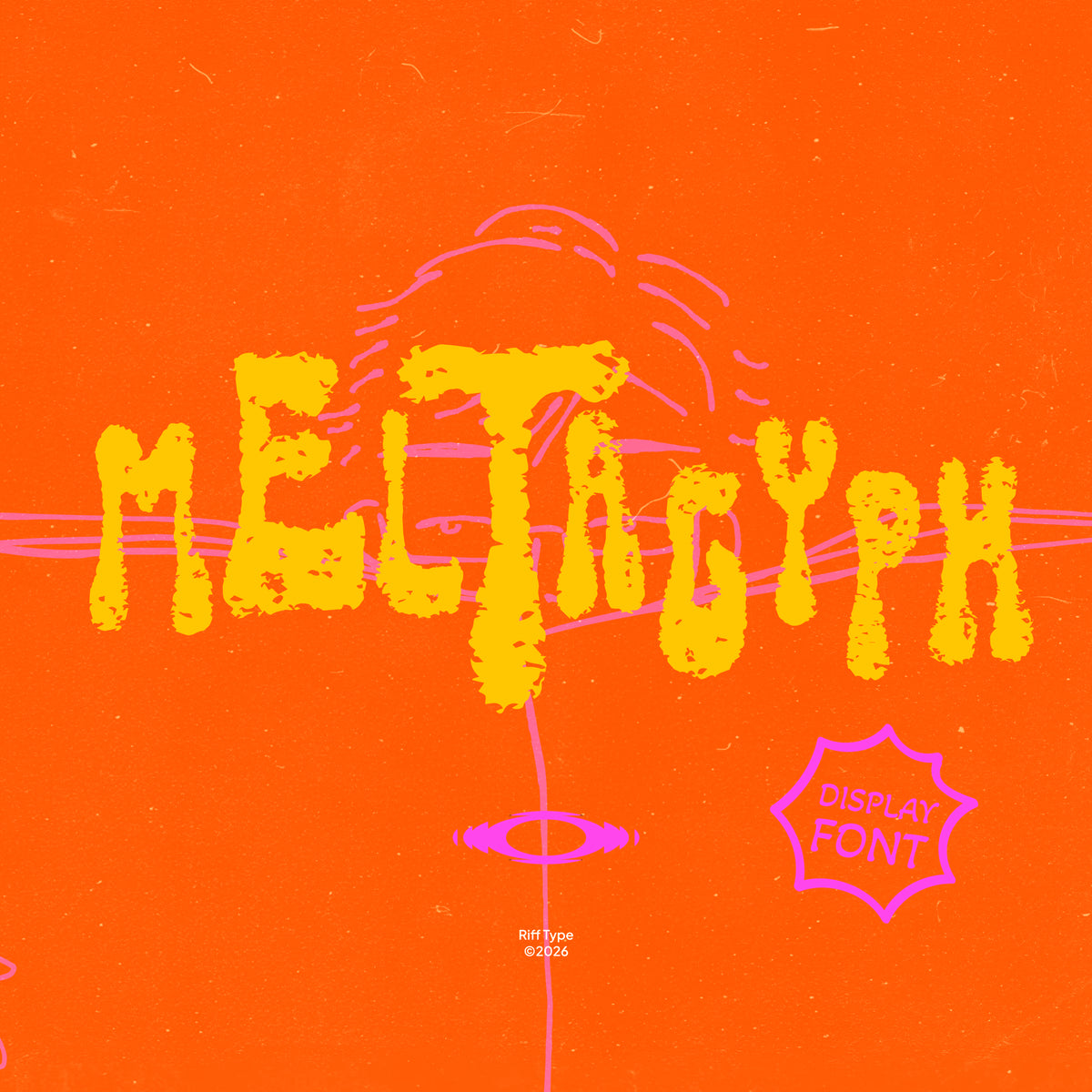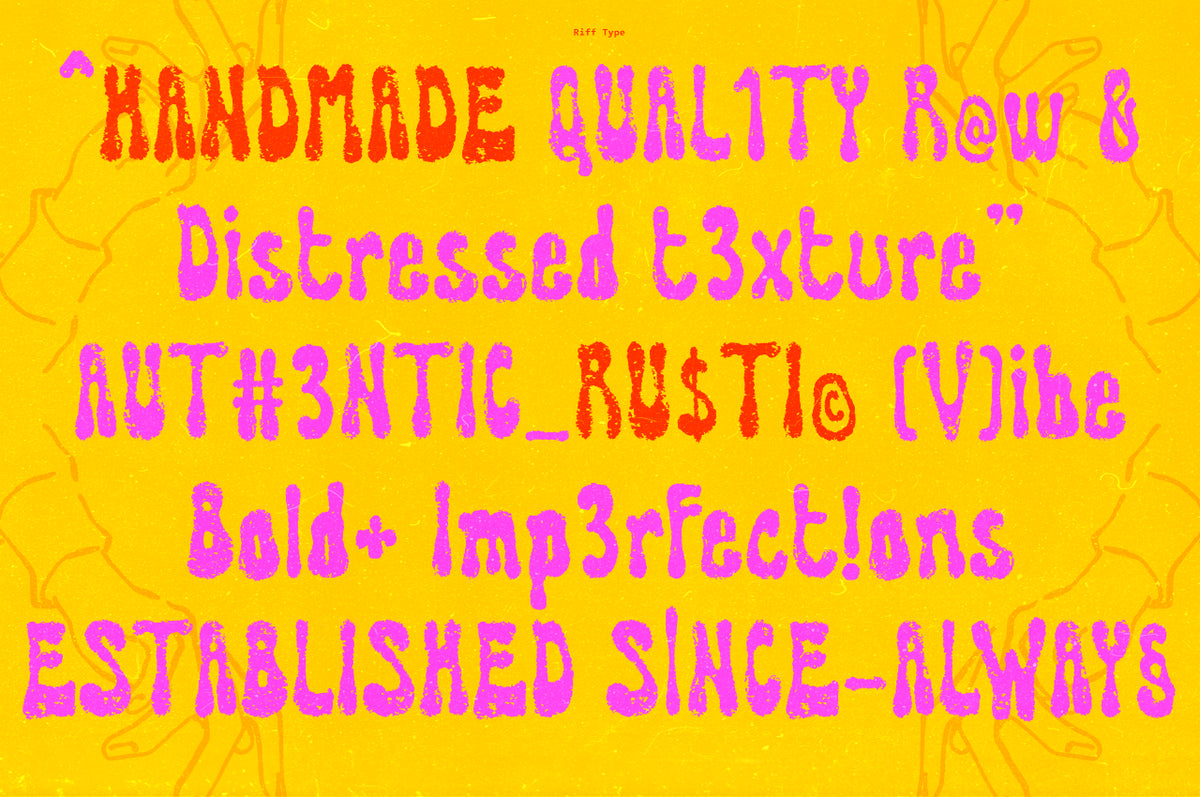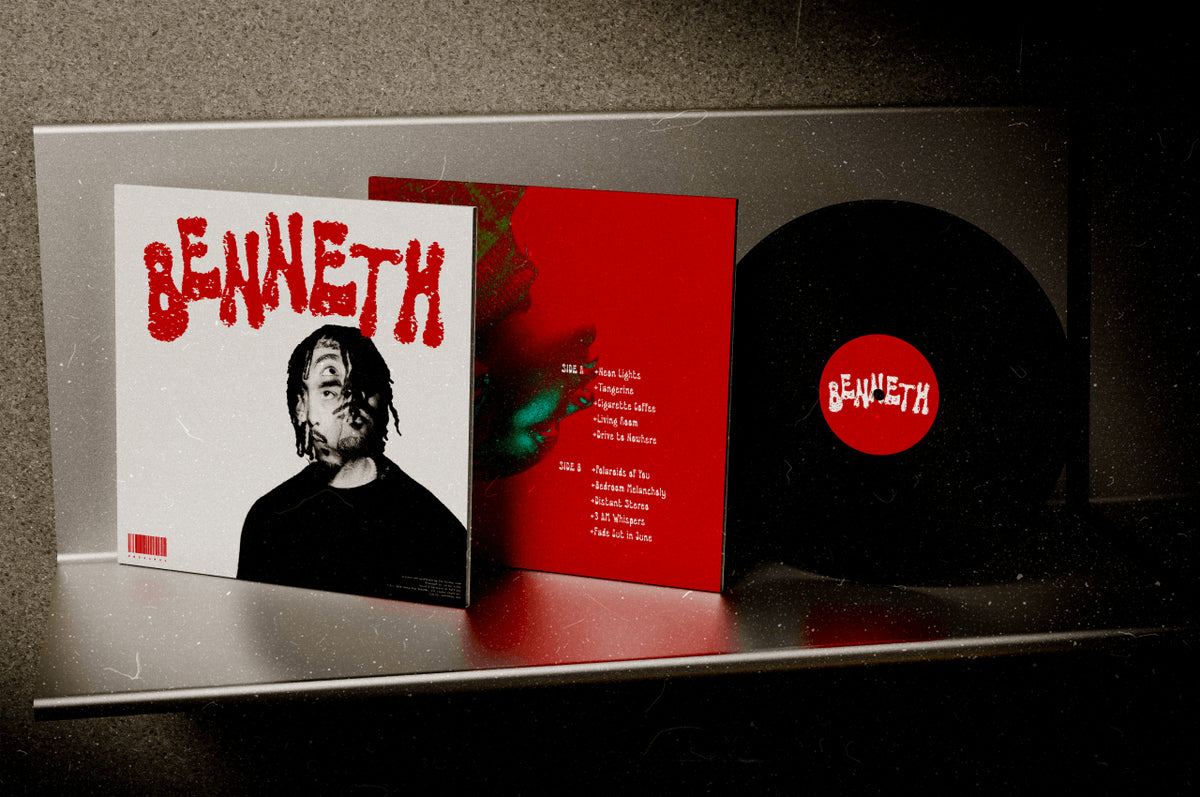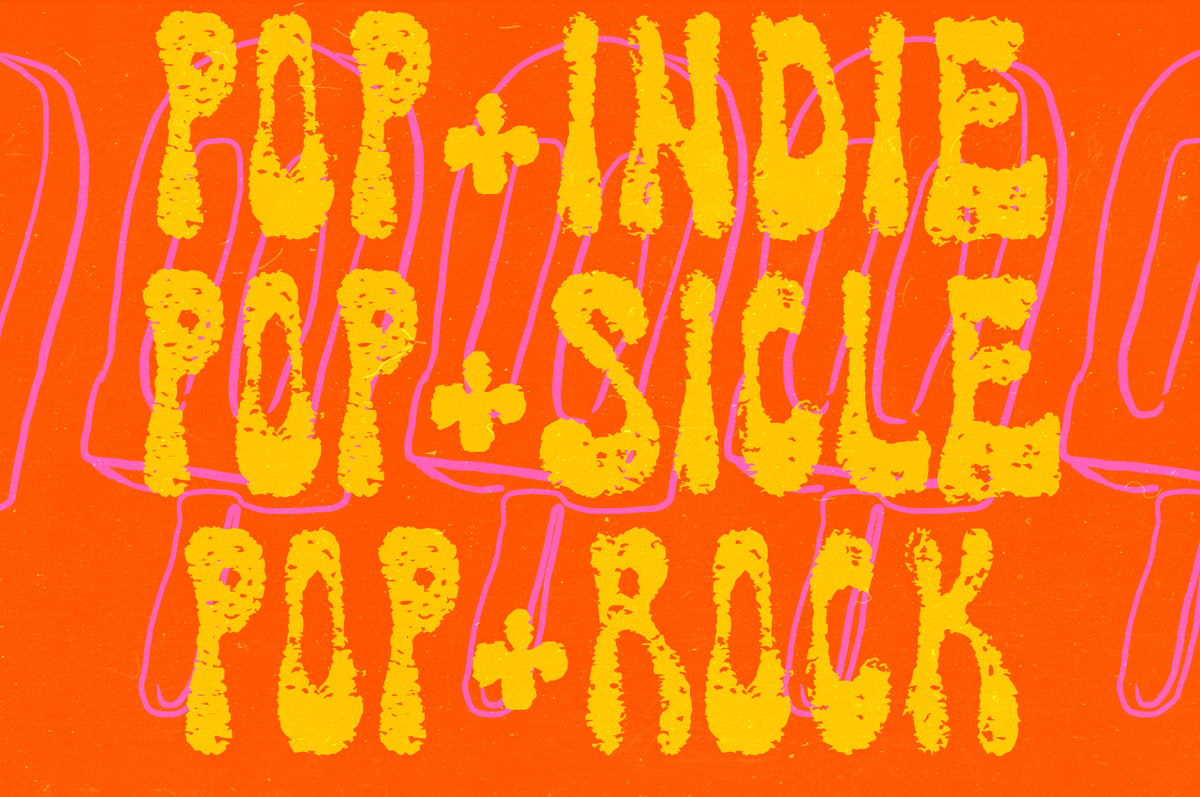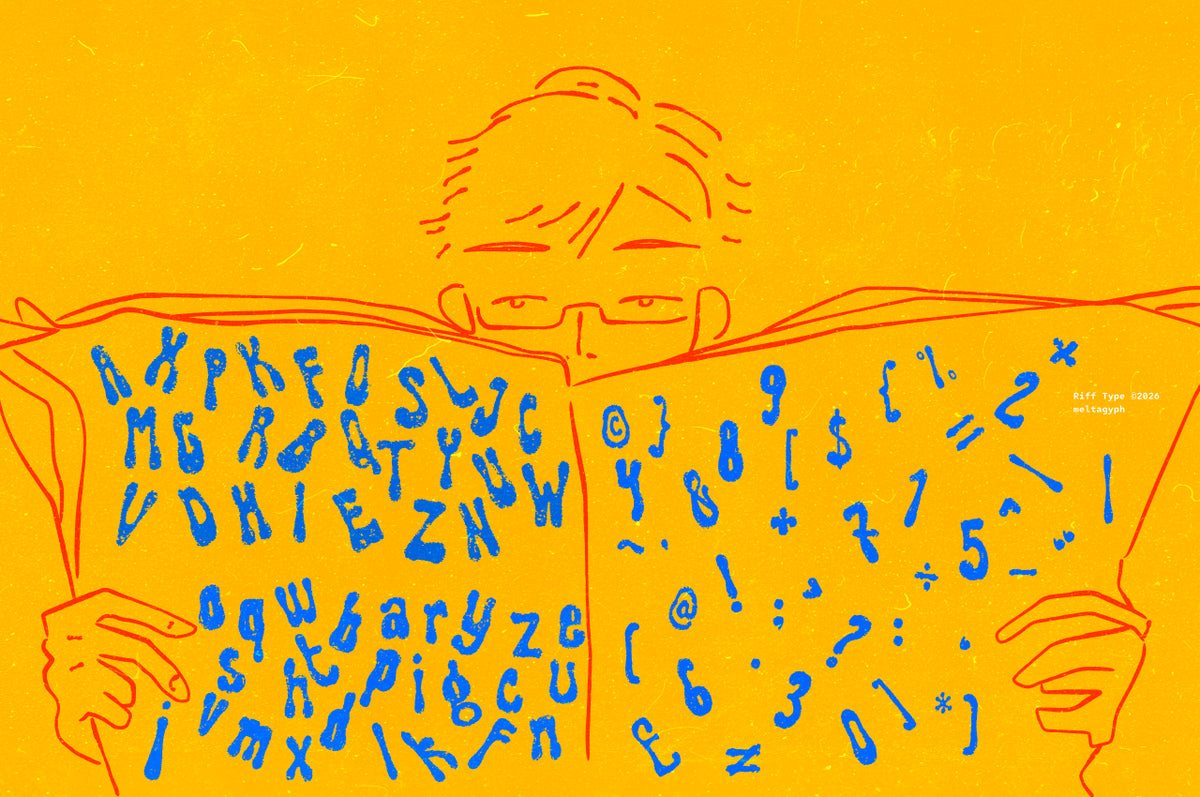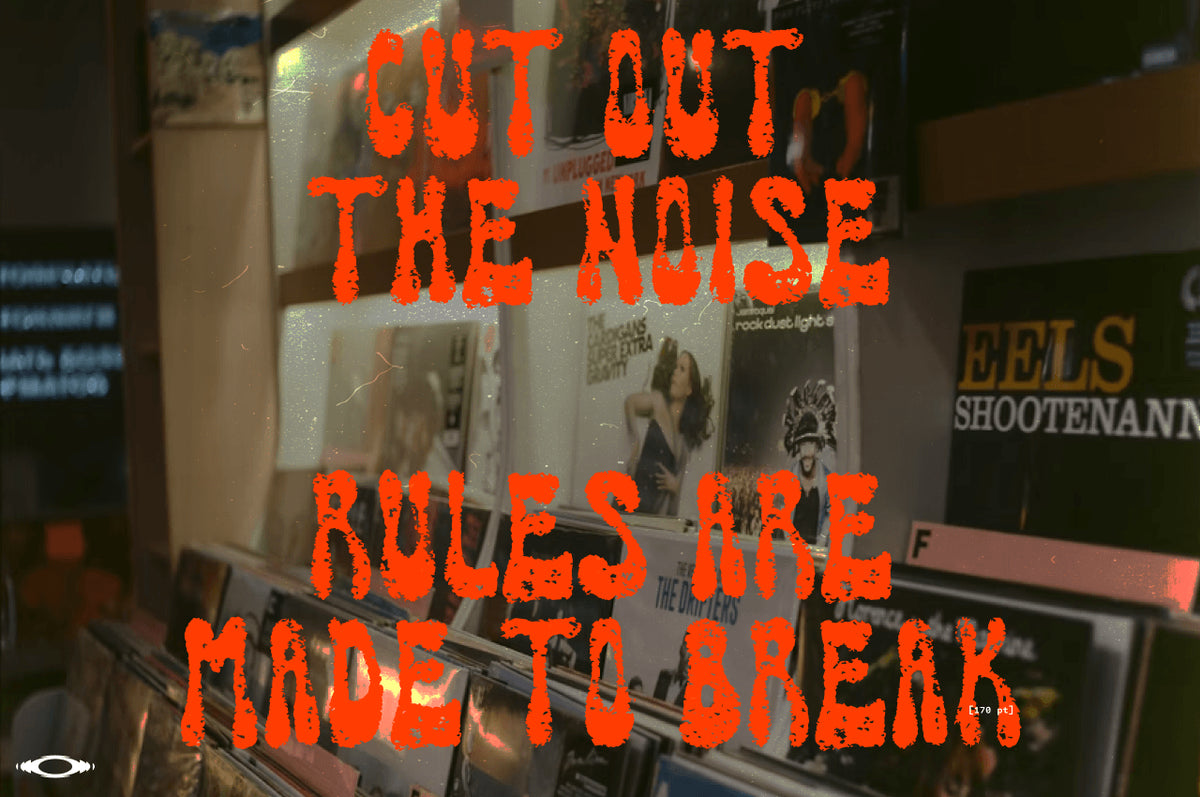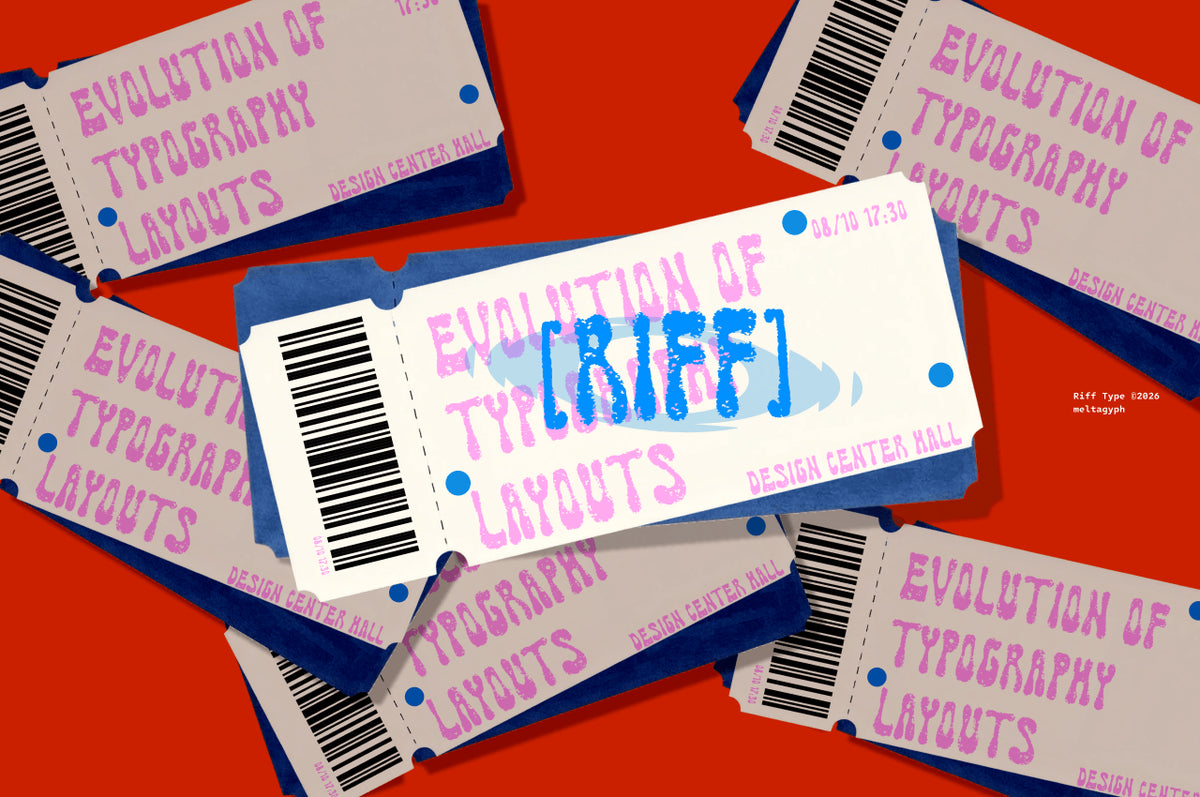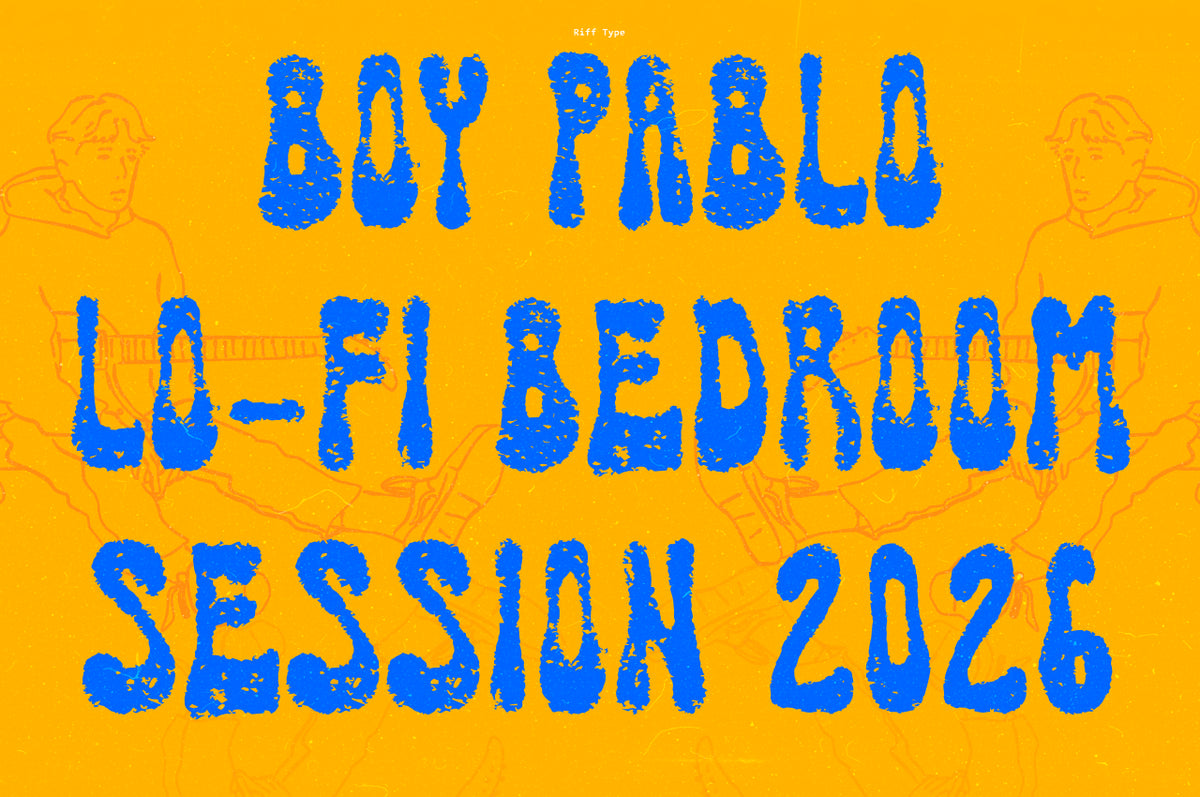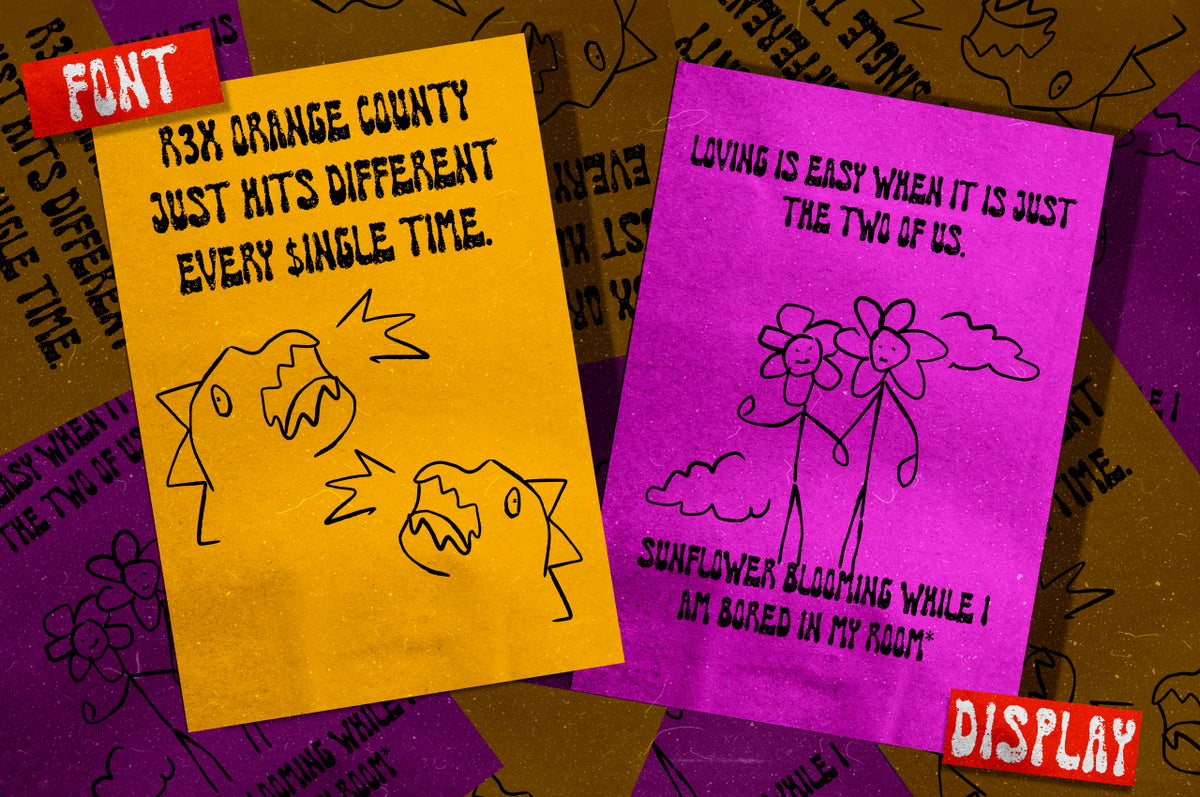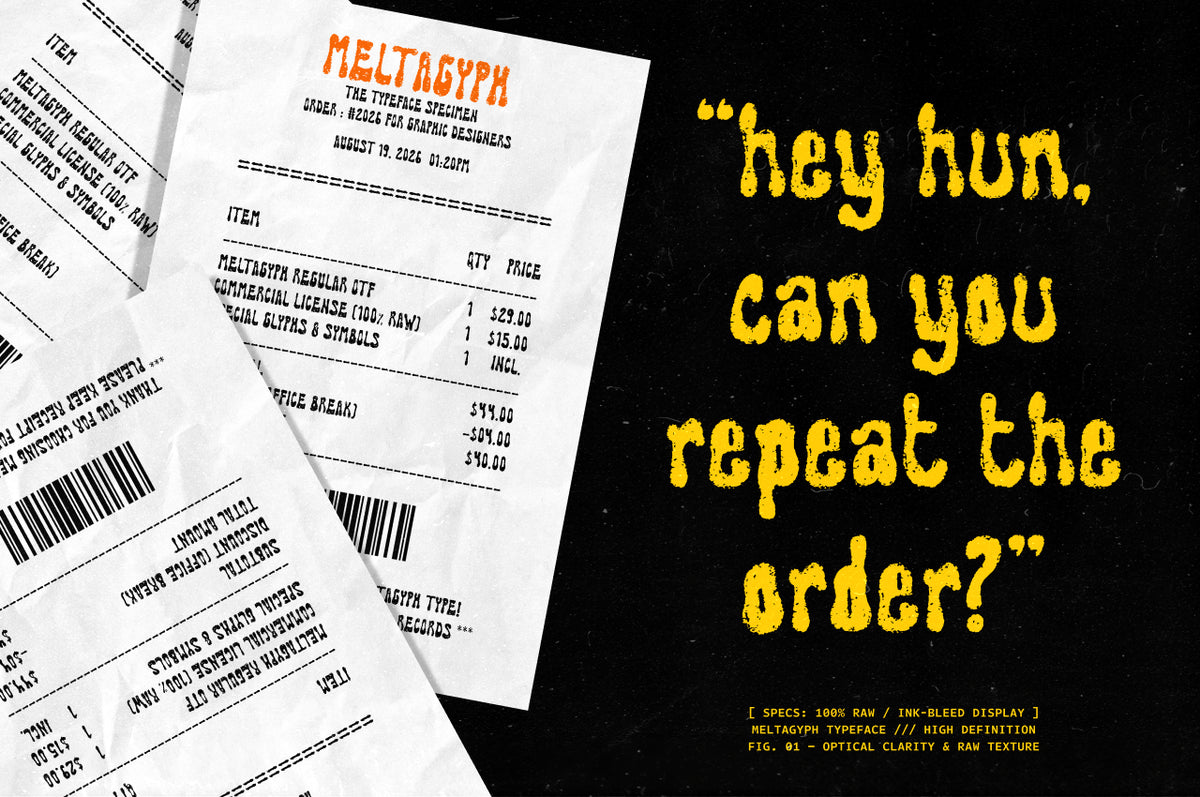
Meltagyph - Distressed Indie Font
Riff Type
Meltagyph is a textured, hand-stamped display font that perfectly captures the DIY spirit of indie pop, the punchy energy of pop-rock, and the sticky, melting aesthetic of a summer popsicle left in the sun. It bridges the gap between catchy, upbeat vibes and raw, unpolished garage-rock textures.
Meltagyph is a textured, hand-stamped display font with a distressed, melting aesthetic. The ZIP file includes TTF, OTF, WOFF, and WOFF2 formats.